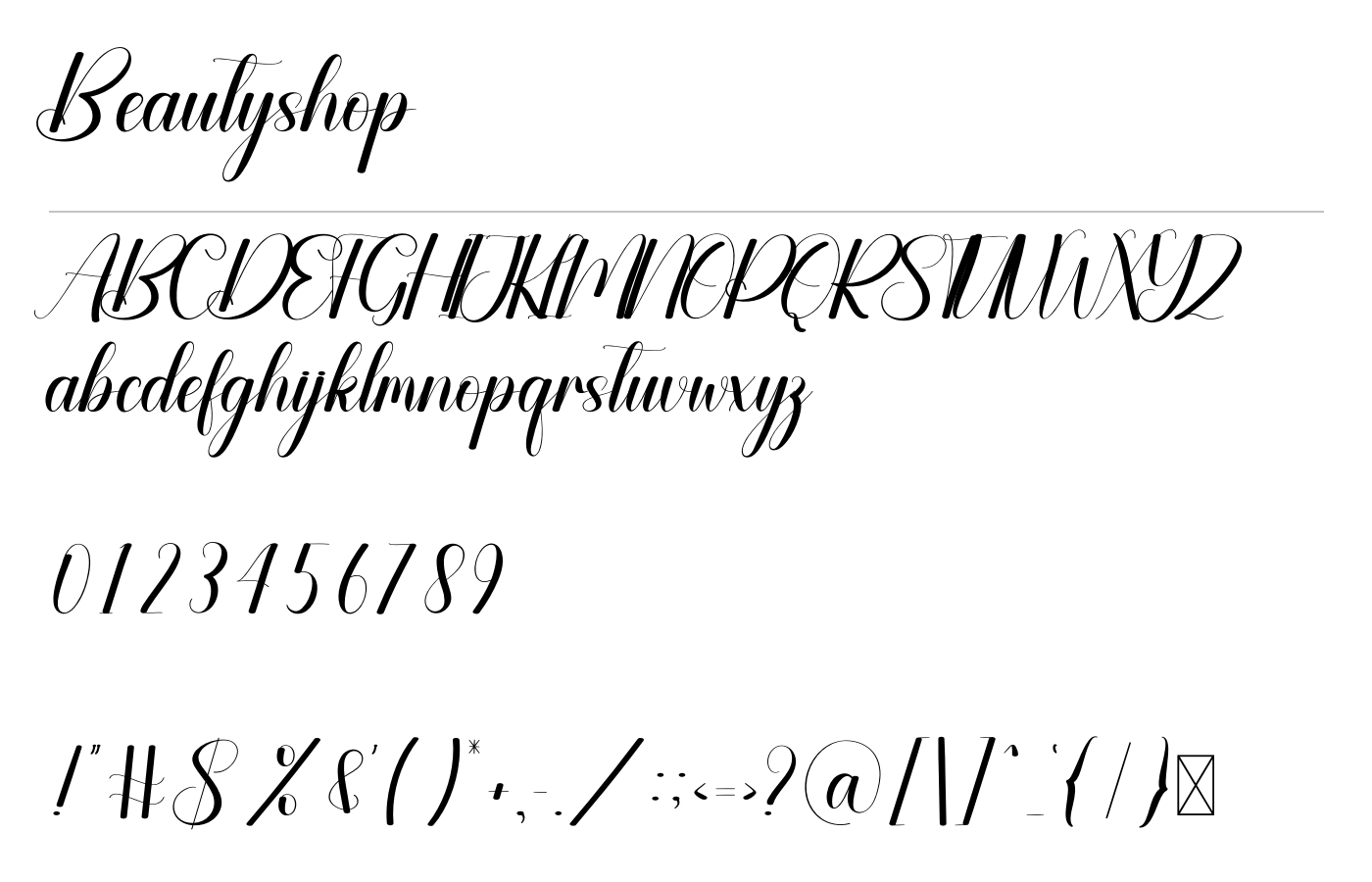
Beautyshop is an elegant script font featuring smooth, flowing strokes with a stylish contrast between thin hairlines and thicker downstrokes. Its graceful, handwritten feel makes it perfect for luxury branding, invitations, and feminine designs that require a sophisticated and refined touch. This font shines in headlines and logos where a sense of beauty and charm is desired.
Beautyshop Font